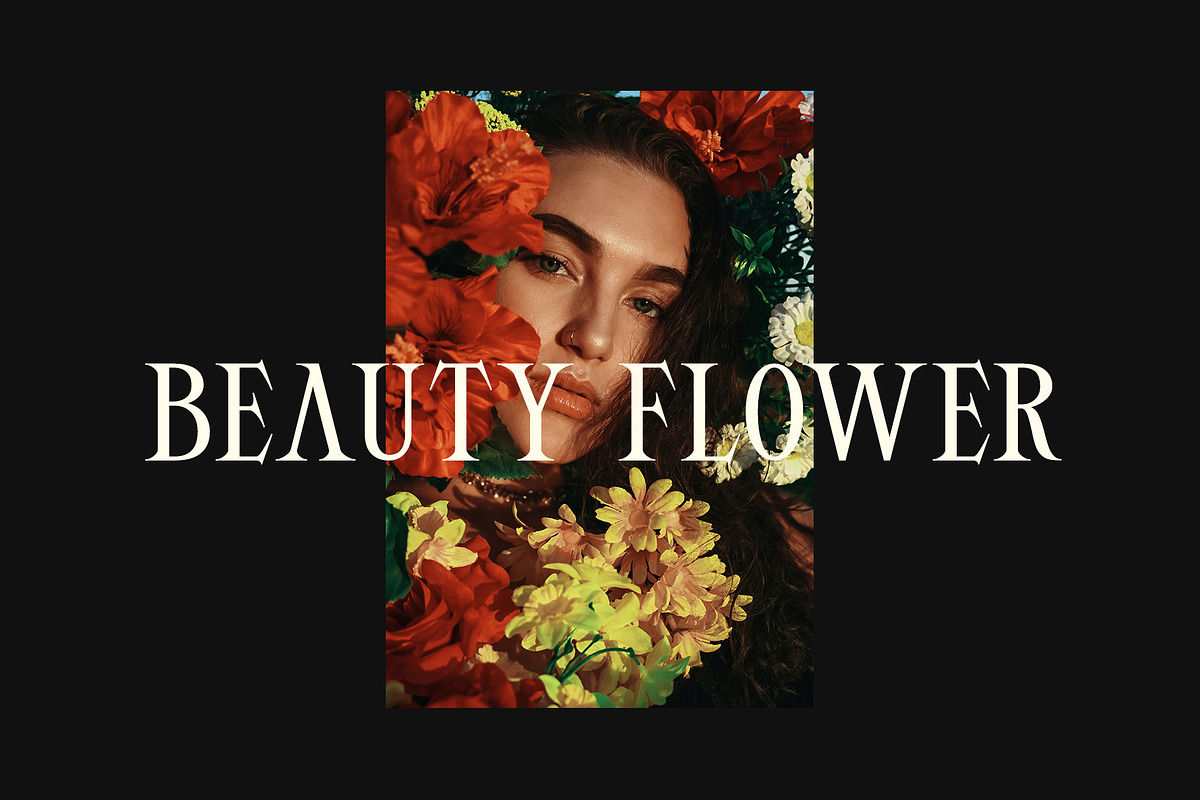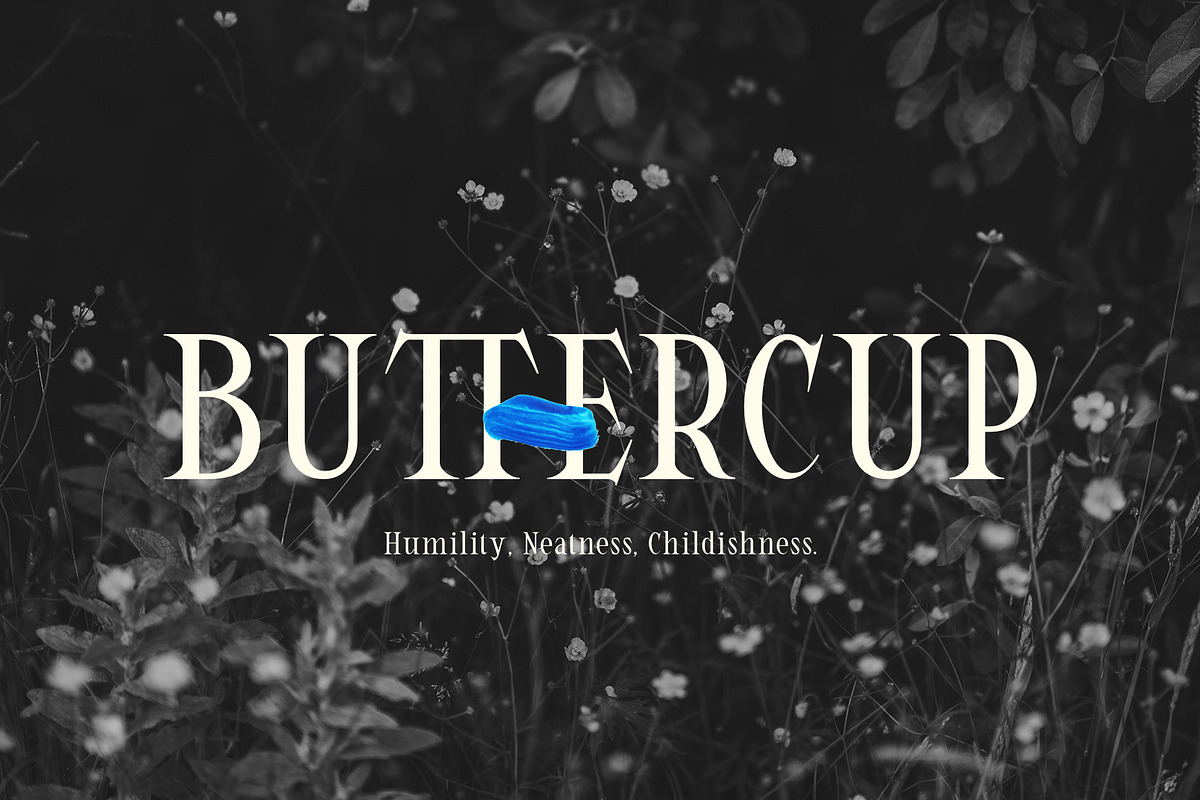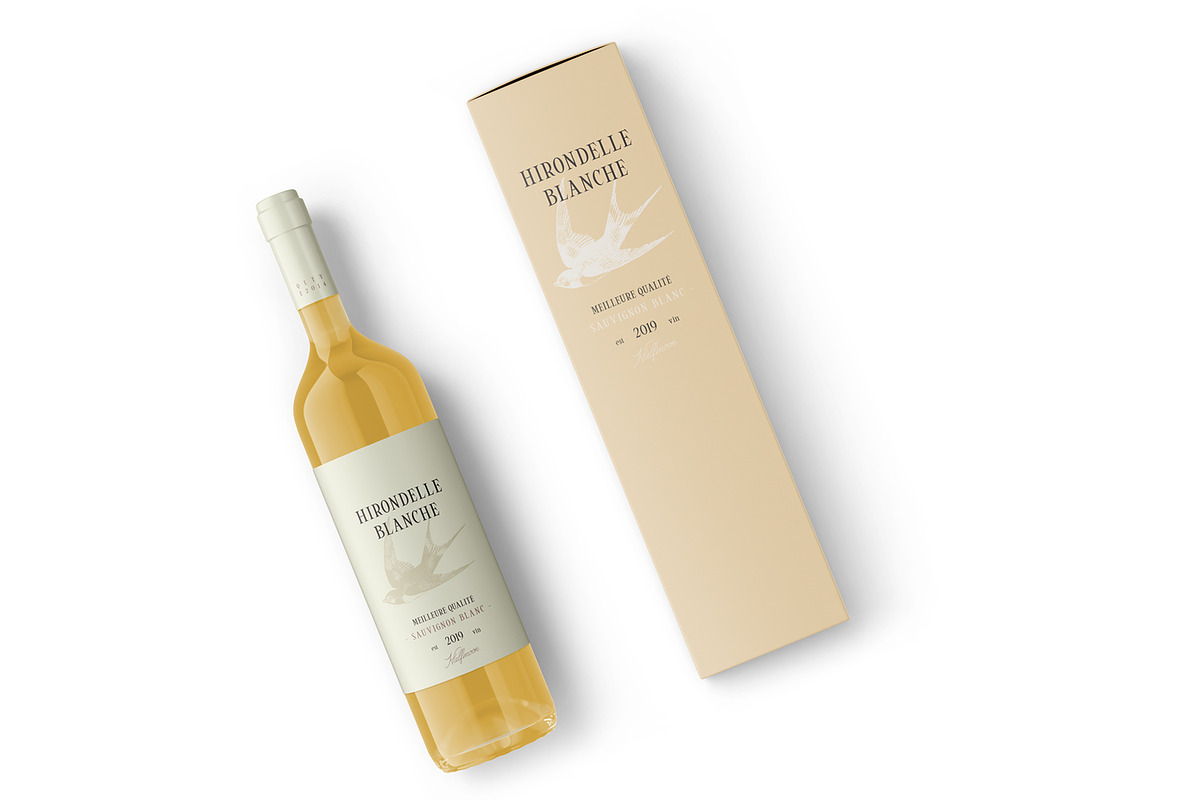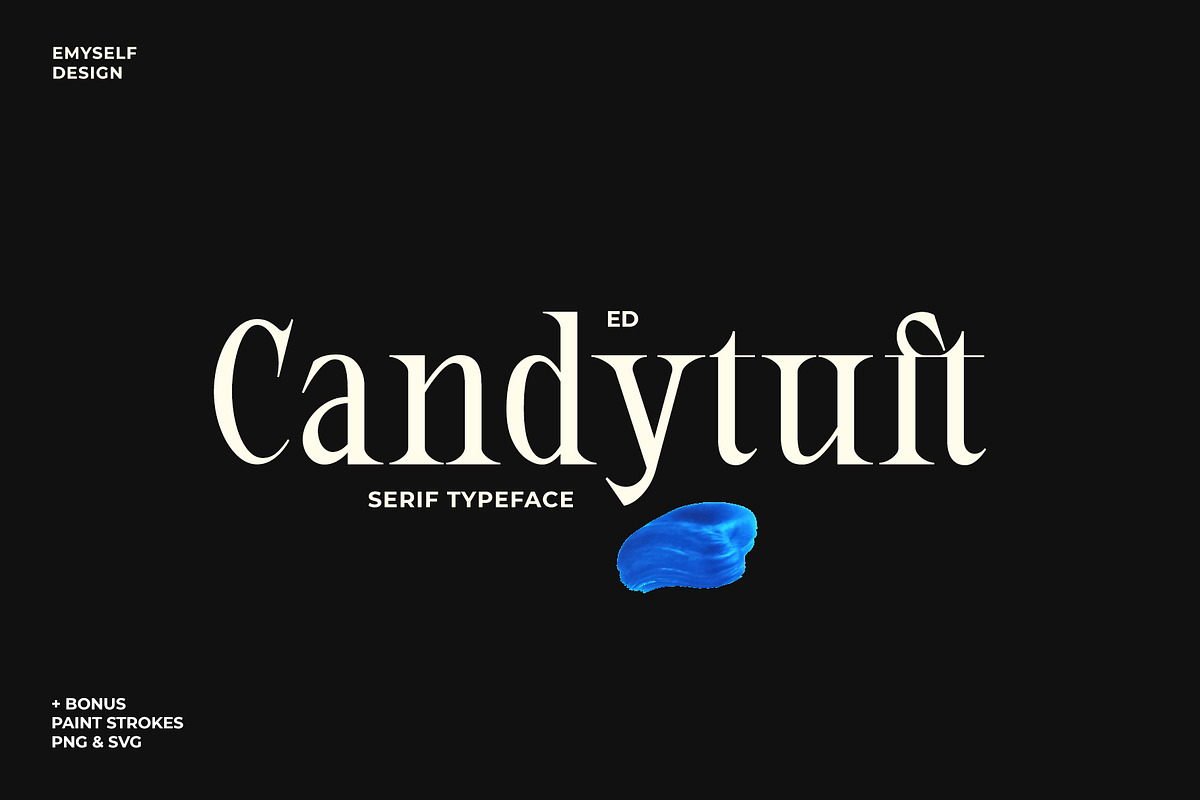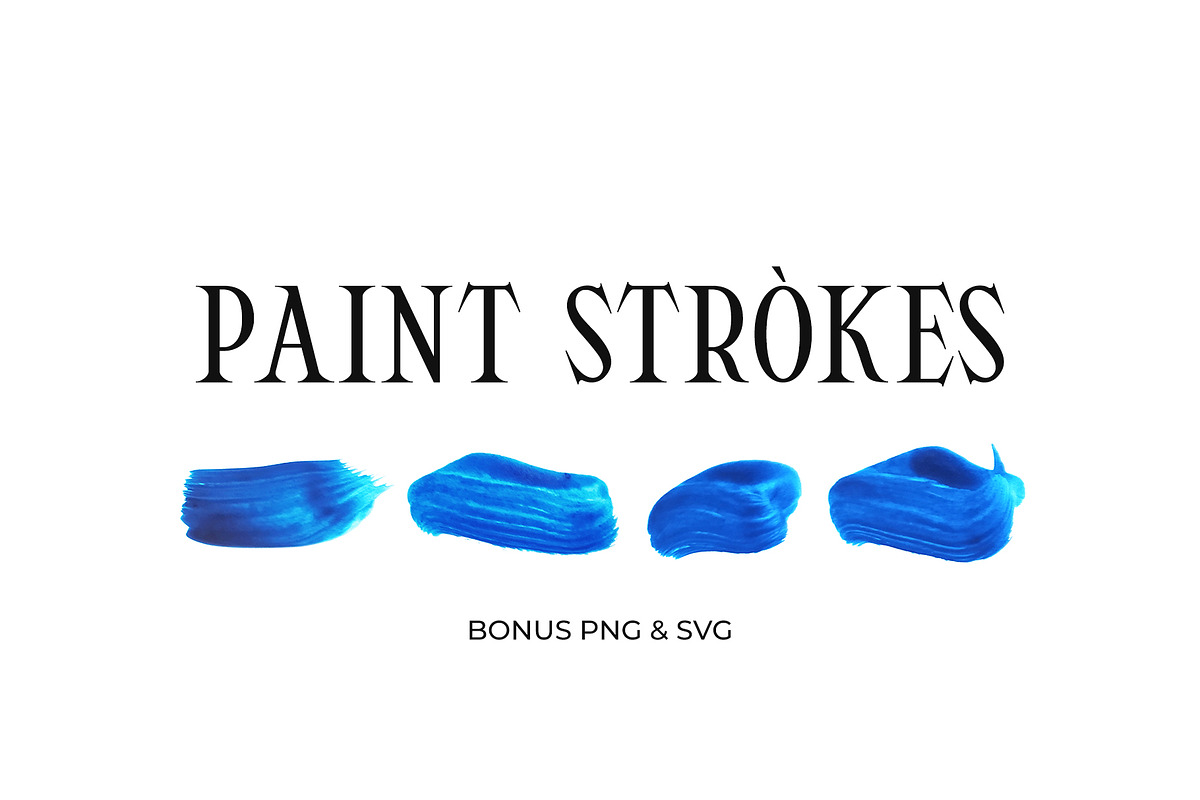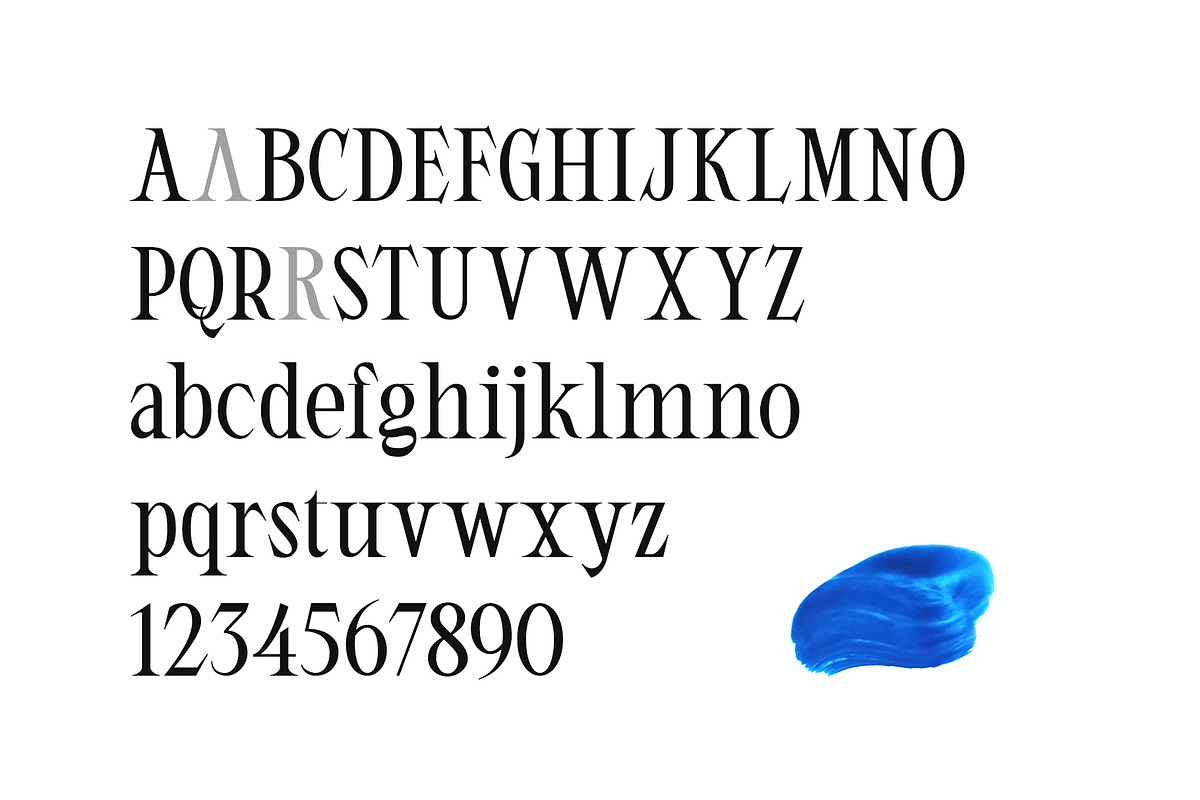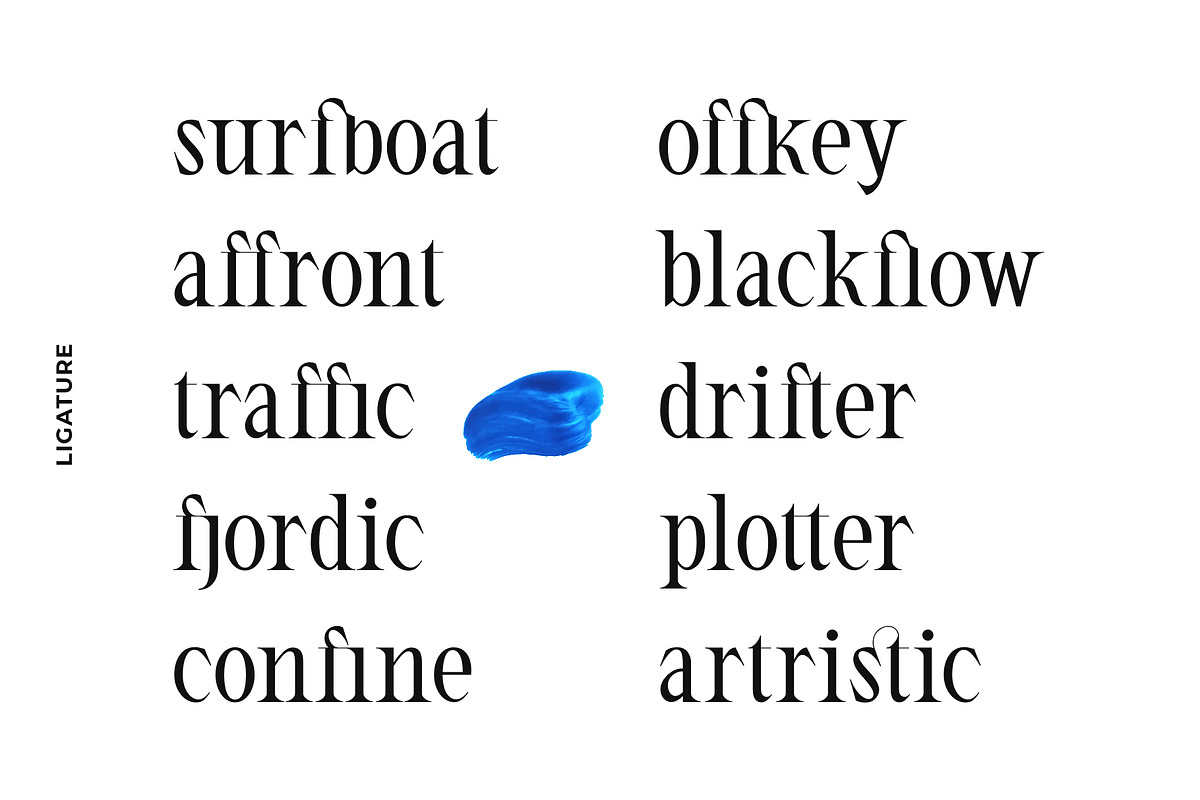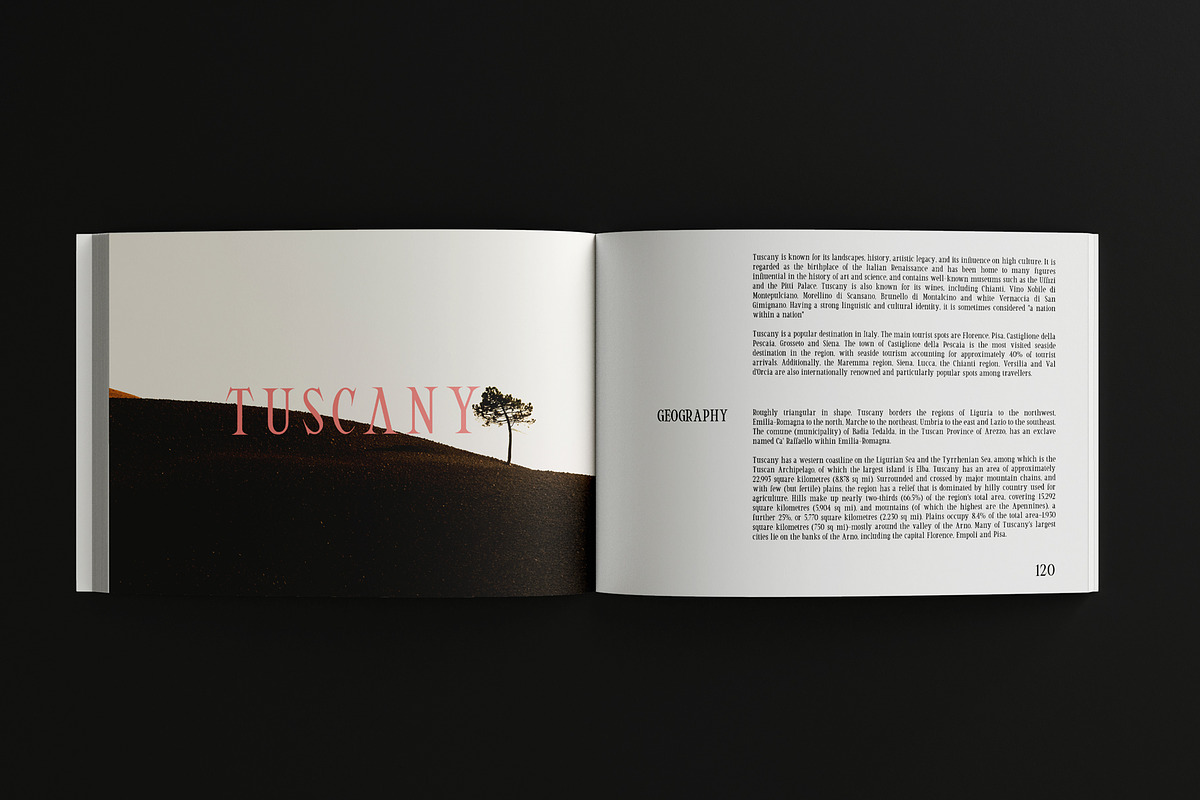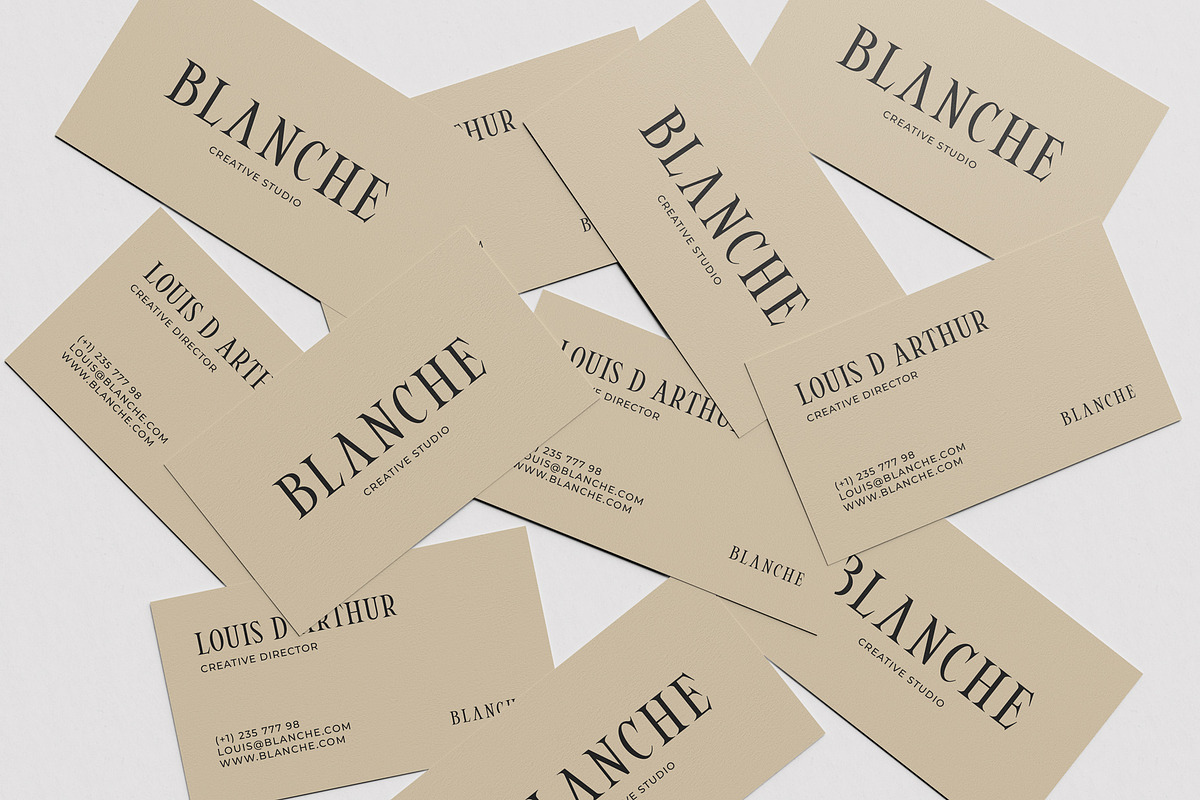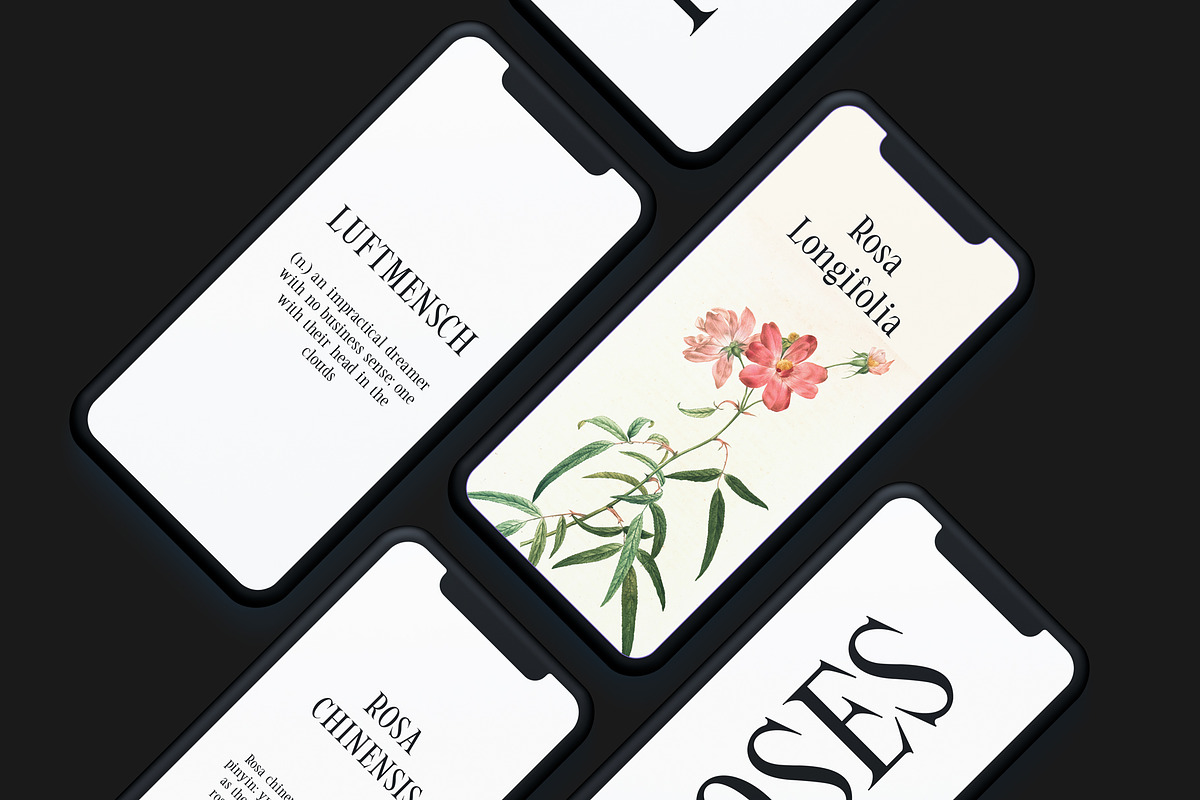
ED Candytuft
ED Candytuft is an elegant serif font with a beautiful contrast. This font is designed to be easily combined with other fonts, besides that this font is equipped with several features such as ligatures, multi-language support, and alternative characters.
This font is perfect for your design needs such as layout designs, apparel, magazines, posters, logos, branding, and others.